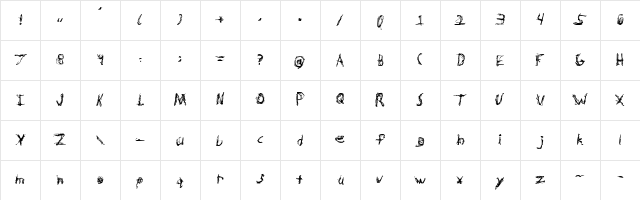
Hypertension Regular Free Font
Hypertension Regular
Foundry: Bionic Type
Designer: Swat Kat
Design Context for Hypertension
Hypertension is a composed and adaptable typeface that performs quietly and consistently across a wide range of design contexts.